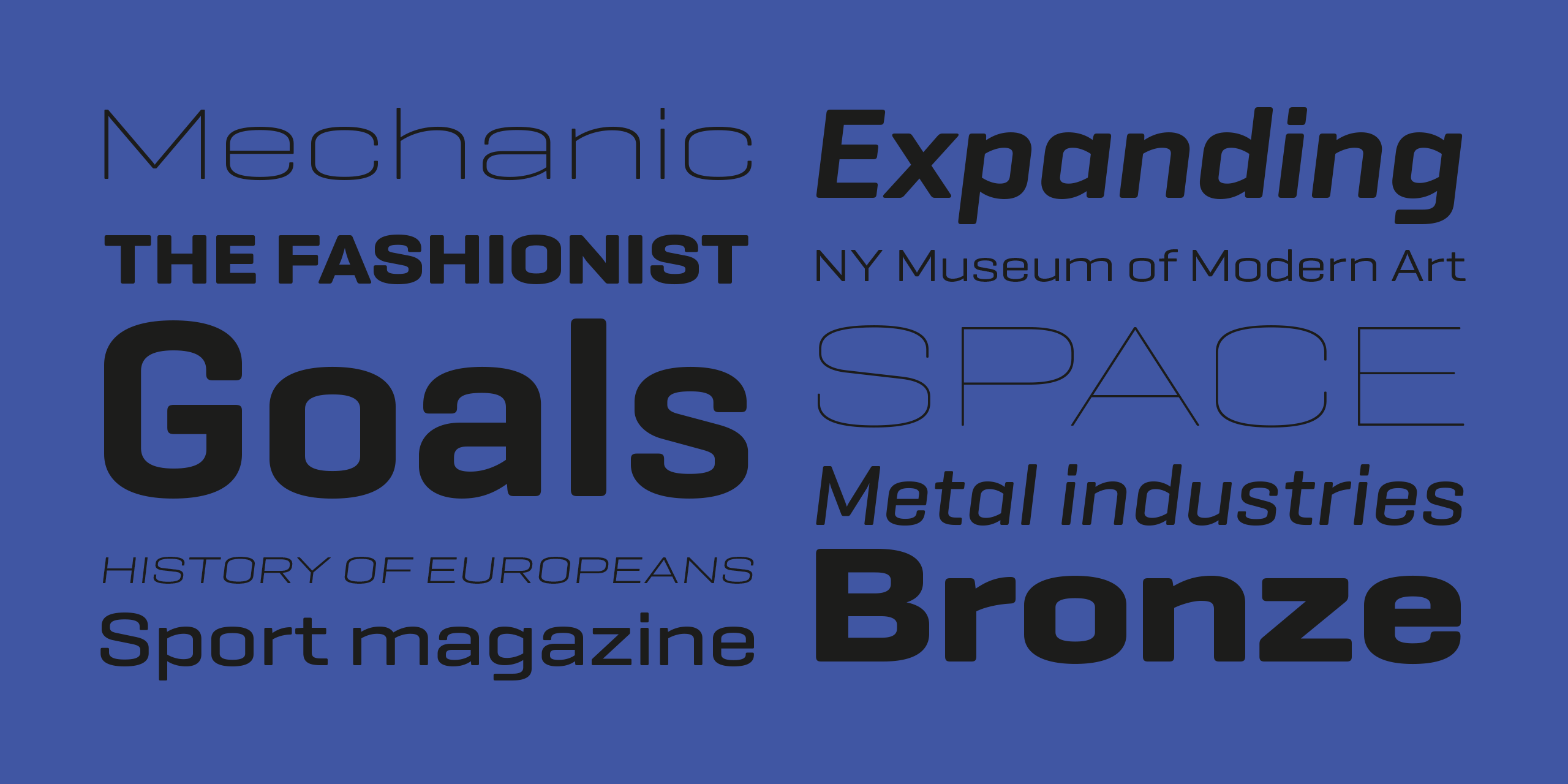
Geogrotesque Expanded Series Free Download
Geogrotesque Expanded Series Font Free Download
Geogrotesque Expanded Series Font is perfect for modern branding, architectural signage, wide format displays, contemporary magazines, urban design projects, industrial applications, and expansive visual communications. This commanding typeface brings geometric precision and horizontal emphasis to space-filling design applications.
Geogrotesque Expanded Series Font is exciting because it combines classic grotesque typography principles with extended proportions that maximize visual impact and horizontal presence while maintaining exceptional clarity and geometric sophistication across wide-format applications.
The Geogrotesque Expanded Series Font family includes multiple weights from Thin to Black, each featuring extended character widths and optimized spacing. This comprehensive collection provides designers with complete typographic flexibility for creating impactful and spatially dynamic design systems.
Geogrotesque Expanded Series Font Free Download offers designers access to a masterfully engineered typeface that represents the evolution of geometric grotesque design with expanded proportions for maximum visual impact. This sophisticated font features precisely crafted letterforms with extended widths and optimal spacing that ensure exceptional performance in wide-format applications and large-scale displays. The typeface showcases geometric construction with balanced character relationships that enhance spatial communications while maintaining professional reliability and contemporary appeal. Its expanded character makes it particularly suitable for architectural firms and modern brands that require typography capable of filling space effectively while conveying geometric precision and contemporary sophistication. Geogrotesque Expanded Series Font delivers consistent performance across various large-format applications, from building signage to wide digital displays. The font's geometric heritage and expanded proportions ensure superior results that enhance spatial design effectiveness while providing audiences with a commanding and engaging typographic experience that reflects modern architectural excellence and geometric design principles.